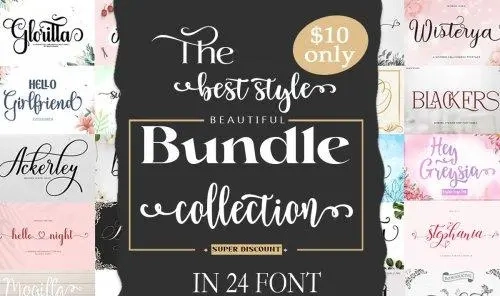
The Best Collection Font Bundle
Introducing The Best Collection Font Bundle, a carefully curated selection of high-quality fonts designed to elevate your creative projects. This bundle includes a variety of styles, from elegant serifs to modern sans-serifs, ensuring you have the perfect typeface for any occasion.
• Multiple font styles: serif, sans-serif, script, and display
• Various weights: light, regular, bold, and extra bold
• Supports multiple languages and special characters
• Versatile for both print and digital use
• Ideal for branding, logo design, web graphics, and print materials
• Mix and match fonts from the bundle for unique typographic designs